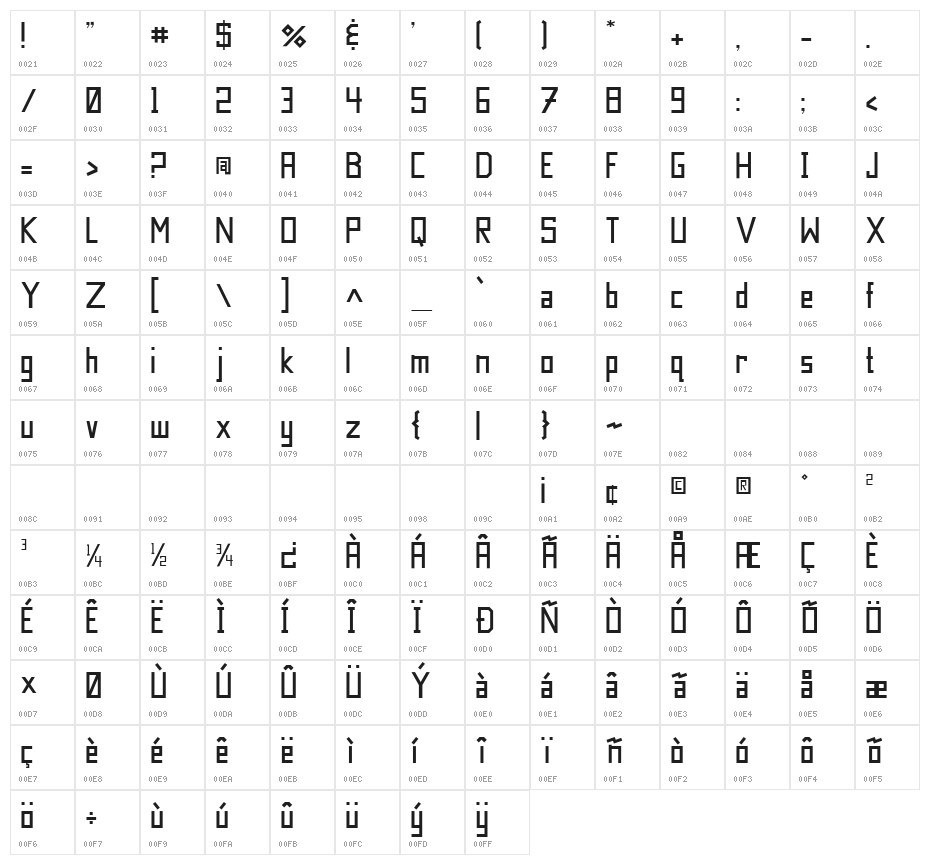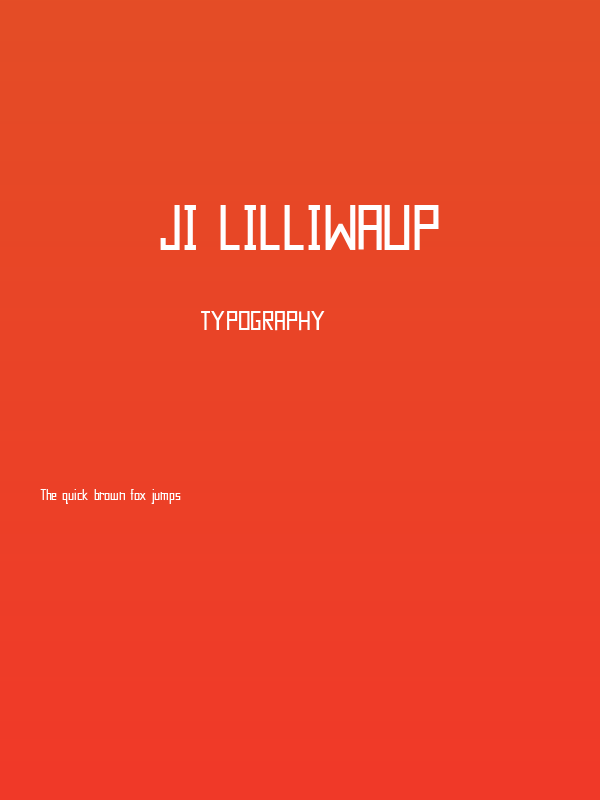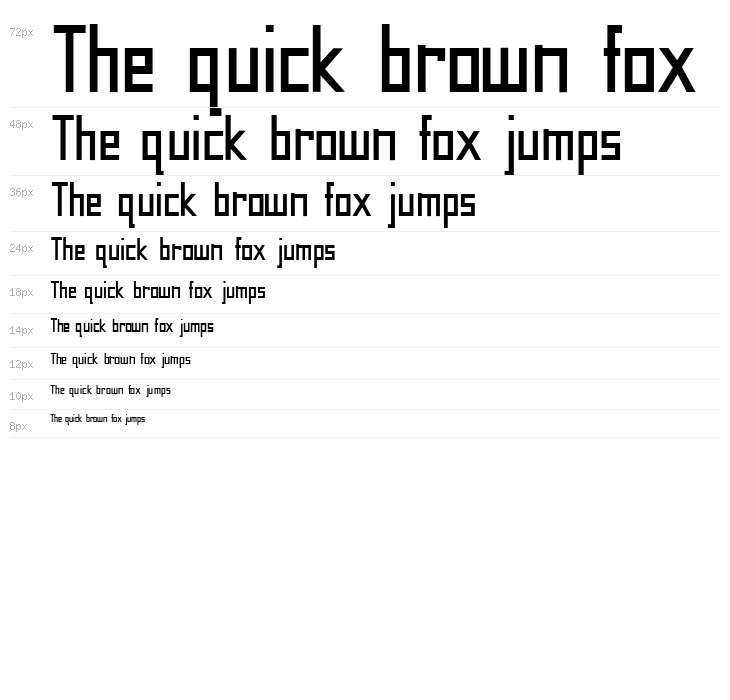
JI Lilliwaup Font
JI Lilliwaup Description
This font features a geometric and angular design, characterized by its sharp edges and clean lines. The uppercase letters are bold and commanding, with a uniform height that creates a cohesive look. The lowercase letters maintain the angular aesthetic, providing a consistent style throughout. Numbers are similarly designed, offering clarity and readability. Special characters are distinct and match the overall geometric theme. The font's structure is modern and slightly futuristic, making it suitable for projects that require a strong visual impact.
Proposed ProjectsIdeal for branding, posters, and digital interfaces that require a modern and impactful look.